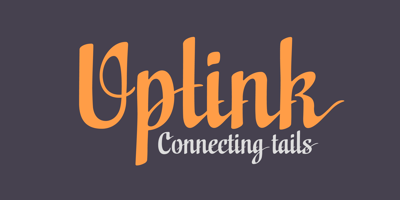
Uplink
Uplink font
Uplink Font Family was designed by Alejandro Paul, Angel Koziupa and published by Sudtipos. Uplink contains 1 styles and family package options. Uplink is decorative upright lettering with heavy calligraphic influences and clear friendly forms. Alternate forms with artificial “tail” connections, swashing their way from one letter across the vertical stroke of the next, add an unusual yet distinctly human detail to the forms that shape the words. Uplink’s reserved humor can be a little tolerant of mechanical abuses like shearing or stretching, which makes it ideal for food product packaging design.